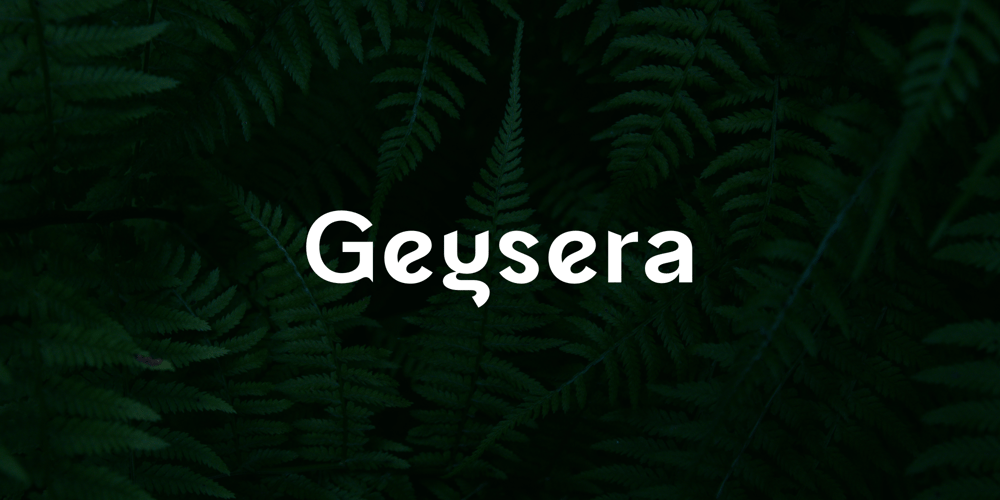
Geysera Font Family was designed by Nik Arliyan and published by Arliyan Creative. Geysera contains 1 styles and family package options. Introducing Geysera, a minimalist and elegant sans-serif typeface that adds a touch of sophistication to your creative projects.Geysera’s clean lines and balanced proportions make it ideal for a variety of design applications, including branding, editorial design, packaging, and web design. What makes Geysera unique is its singular weight and style, offering a minimalist approach to typography that exudes clarity and modernity. Geysera’s character set includes support for multiple languages, ensuring versatility and accessibility for global audiences.Inspired by contemporary design trends, Geysera combines timeless elegance with modern simplicity, making it a versatile choice for designers seeking to make a statement with their typography. Crafted with precision and attention to detail, Geysera is the perfect companion for projects that demand clarity, sophistication, and style.